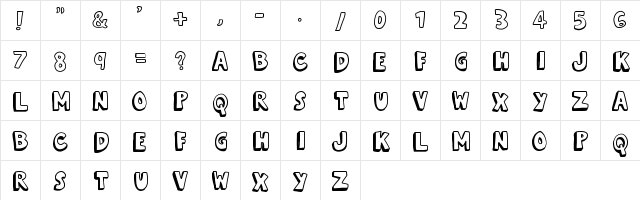
kevin eleven Medium Free Font
kevin eleven Medium
Design Context for kevin eleven
kevin eleven is a composed and adaptable typeface that performs quietly and consistently across a wide range of design contexts.